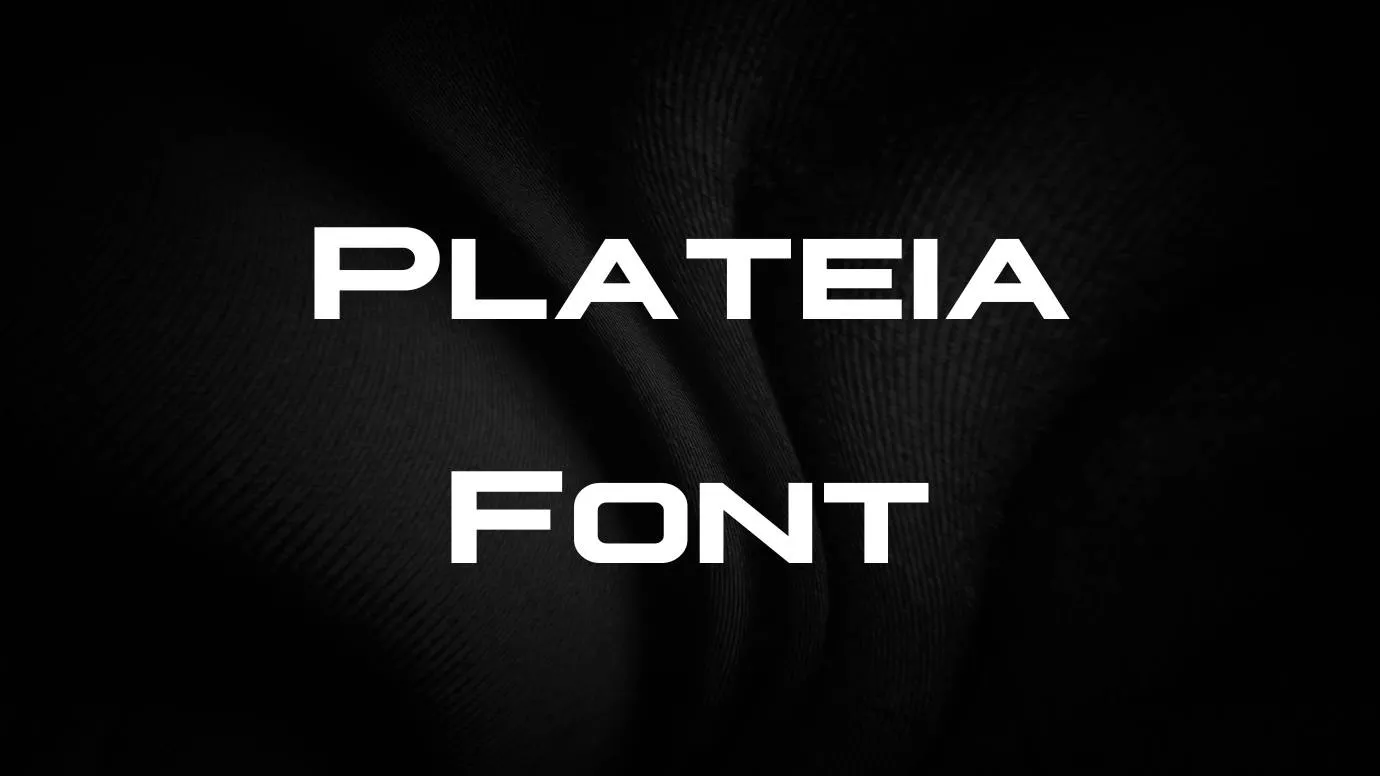
Another amazing font, Plateia Font is a sans serif typeface having thick and thin strokes to create bold creativity in your design project. The best part of the typeface is that all the letters have a clean structure without any mistakes.
This typeface is most suitable with corporative alt hair font for modern business, creating logos, displaying titles, book covers, advertisements, product designs, product packaging, fabric printing, headlines even web development, and so on.
The typeface comes very close to white rabbit font because of its style, weight, and alternate characters. It is best used for display purposes along with digital and print projects. In addition, it is available in both Open Type and True Type formats.
Creator of Plateia Font
The creator of the stylish typeface is Steve Gardner. He is a respected designer and can be seen in his work. This is a stunning and awesome texture.
This style is designed with a unique regular and bold style. These attractive styles are a mixture of multiple characteristics, containing upper and lowercase letters, numbers, punctuations, symbols, special characters, glyphs, and different language supports.
Why is the Plateia Font so popular?
This typeface is a popular choice for all your designs. Plateia is a sans-serif typeface having thick and thin strokes to create bold creativity in your design project.
What are the main purposes of Plateia font?
This typeface can be used in modern business, to create logos, display titles, book covers, advertisements, product designs, product packaging, fabric printing, headlines even web development, and so on.